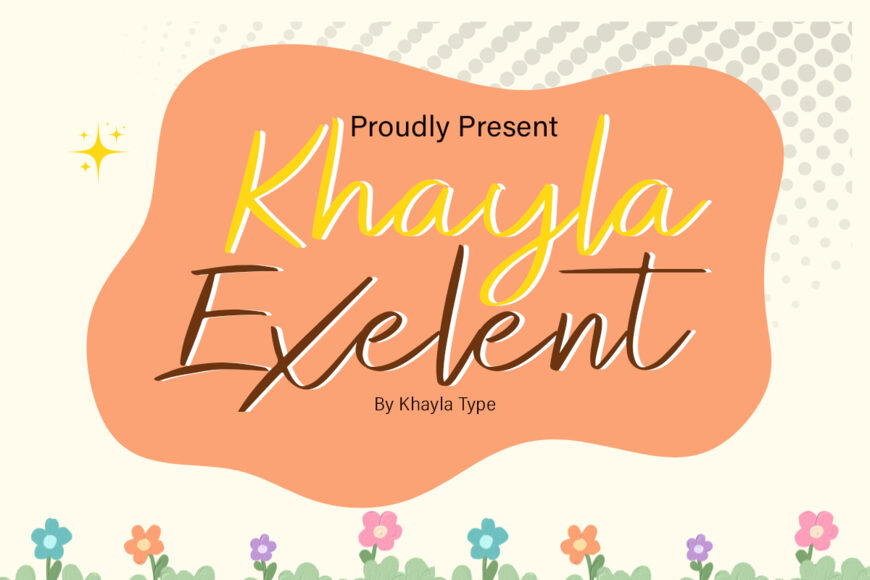
Khayla Exelent is an elegant, modern script font featuring graceful, flowing strokes and refined swashes. Designed with a hand-drawn aesthetic, it balances sophistication with a playful, organic feel.
Its distinctive letterforms make it ideal for wedding invitations, luxury branding, feminine logos, social media graphics, and editorial headers. With smooth curves and fluid connectivity, Khayla Exelent effortlessly brings a personalized, artistic touch to any creative project.